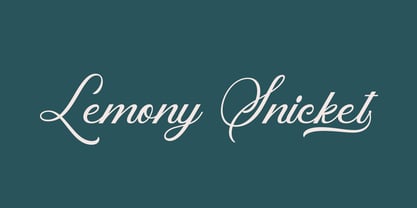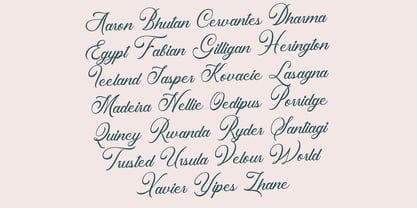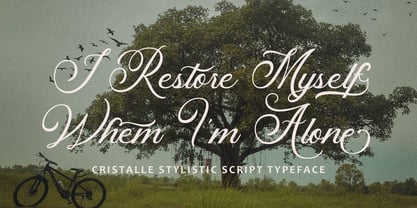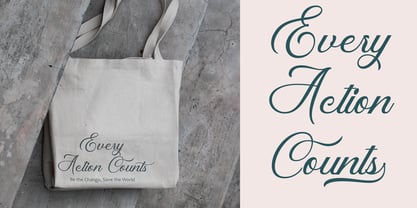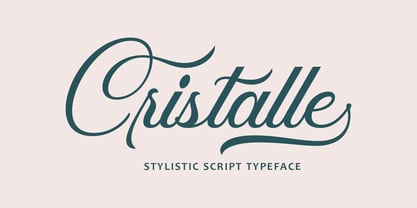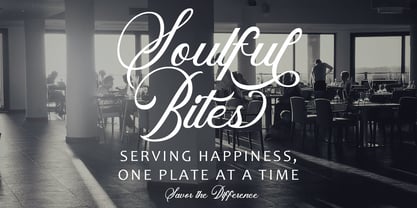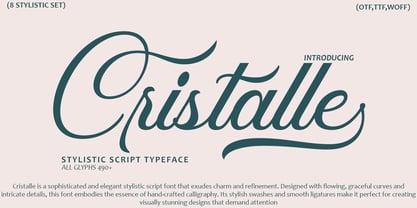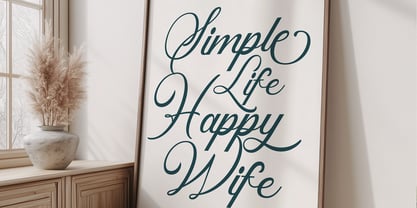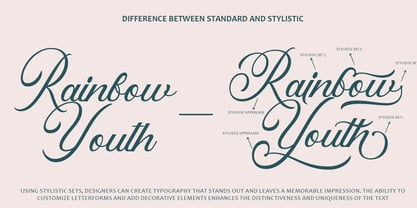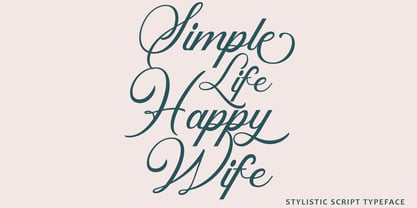
Cristalle
par Arendxstudio
La famille de polices Cristalle a été conçue par Asep Rendi et publiée par Arendxstudio. Cristalle contient 1 styles.
Stylistic Script Font: Cristalle
Cristalle is a sophisticated and elegant stylistic script font that exudes charm and refinement. Designed with flowing, graceful curves and intricate details, this font embodies the essence of hand-crafted calligraphy. Its stylish swashes and smooth ligatures make it perfect for creating visually stunning designs that demand attention.
Cristalle is versatile and well-suited for a variety of applications, including wedding invitations, luxury branding, fashion labels, and high-end packaging. The font features an array of alternate characters and stylistic sets, allowing for endless customization to achieve the perfect look for your project.
With its timeless appeal and refined aesthetic, Cristalle brings a touch of elegance to any design, making it a go-to choice for those looking to add a sophisticated flair to their work.
Concepteurs: Asep Rendi
Éditeur: Arendxstudio
Fonderie: Arendxstudio